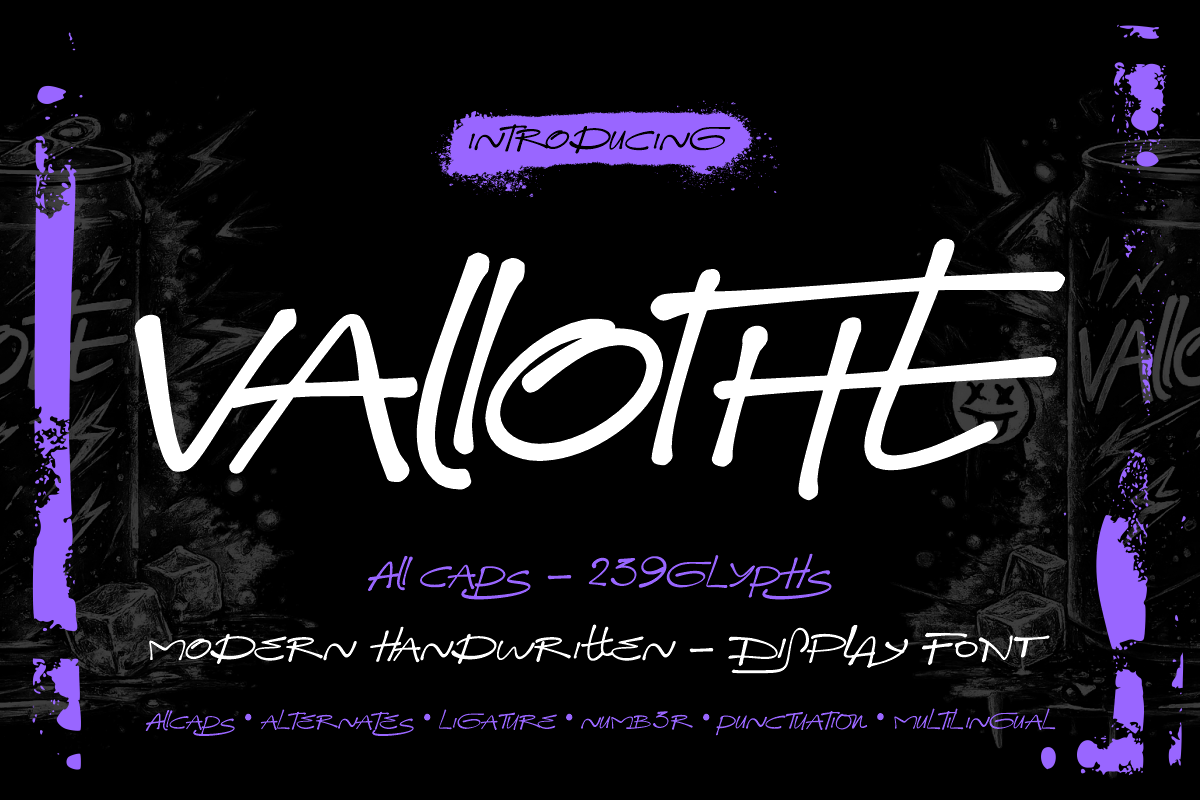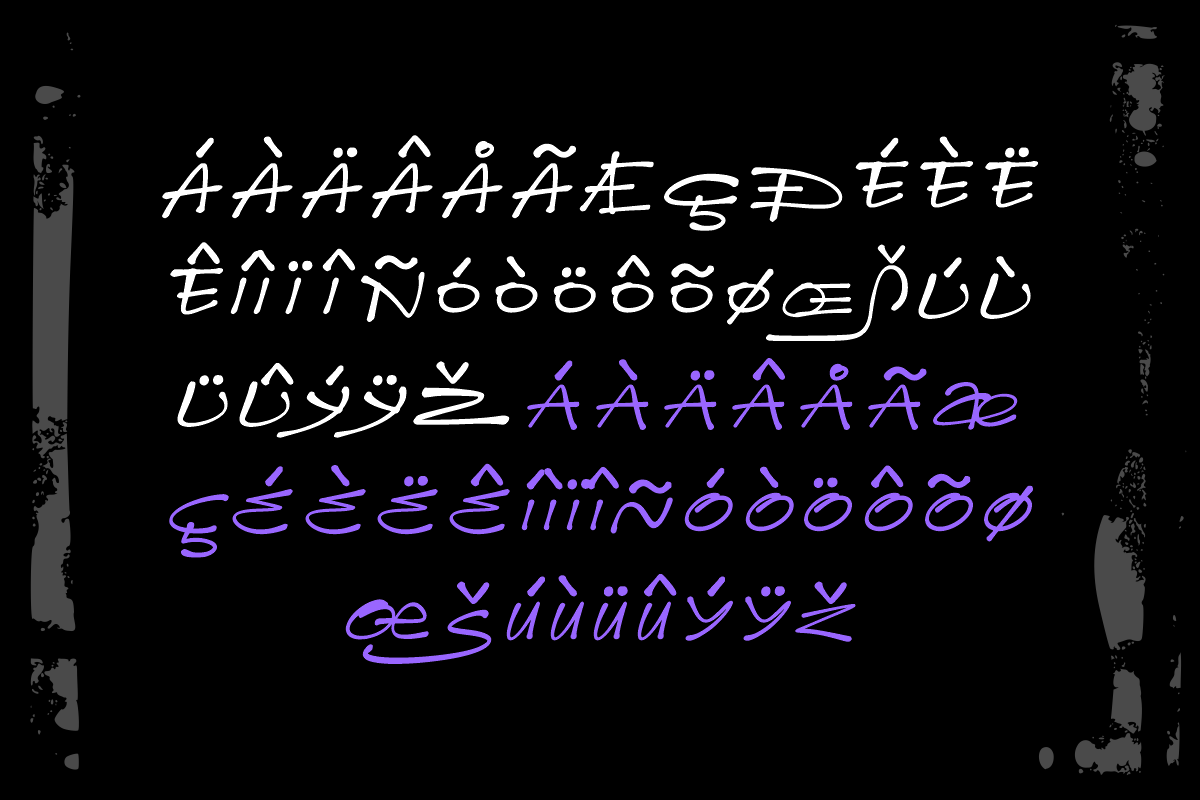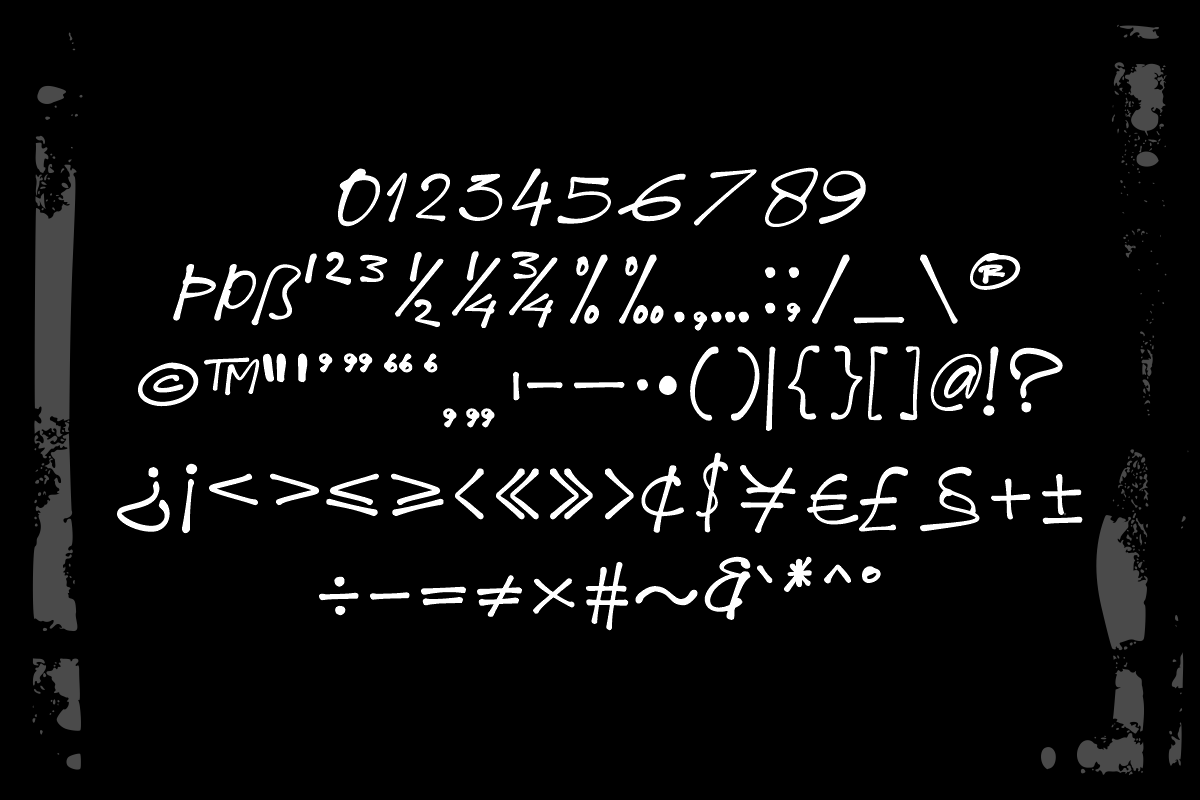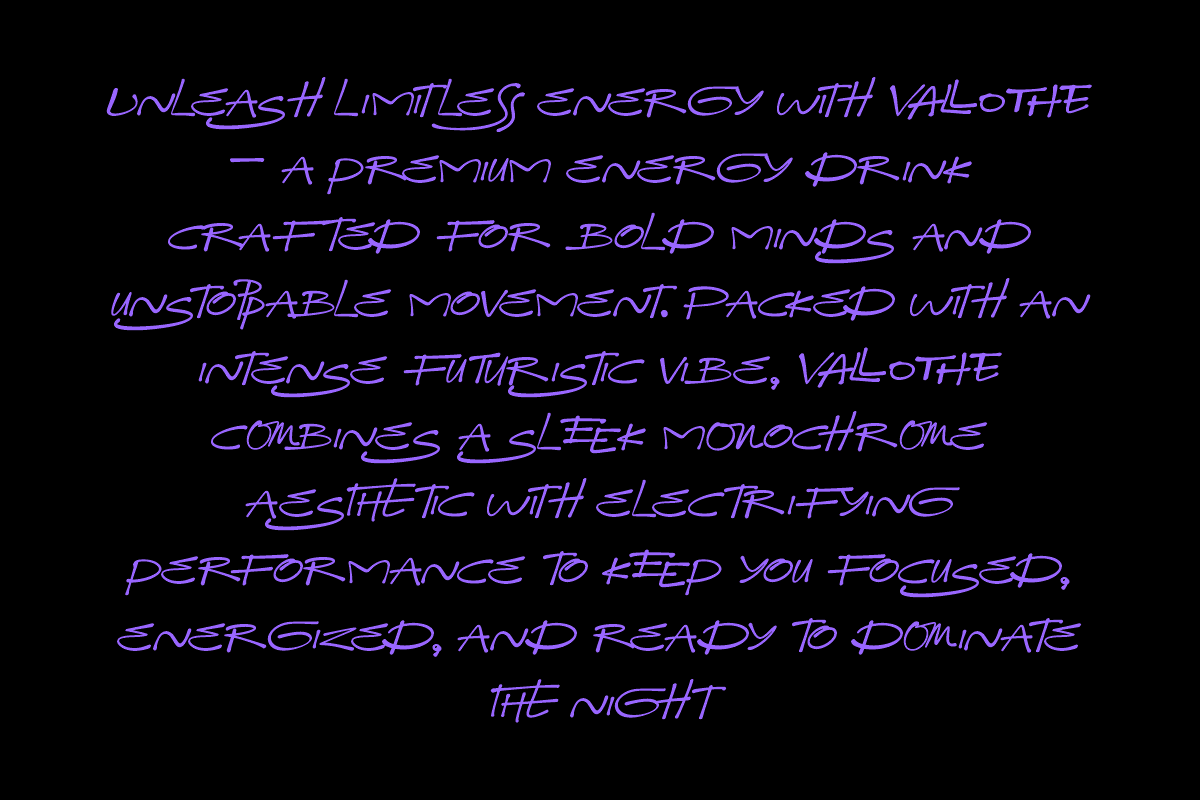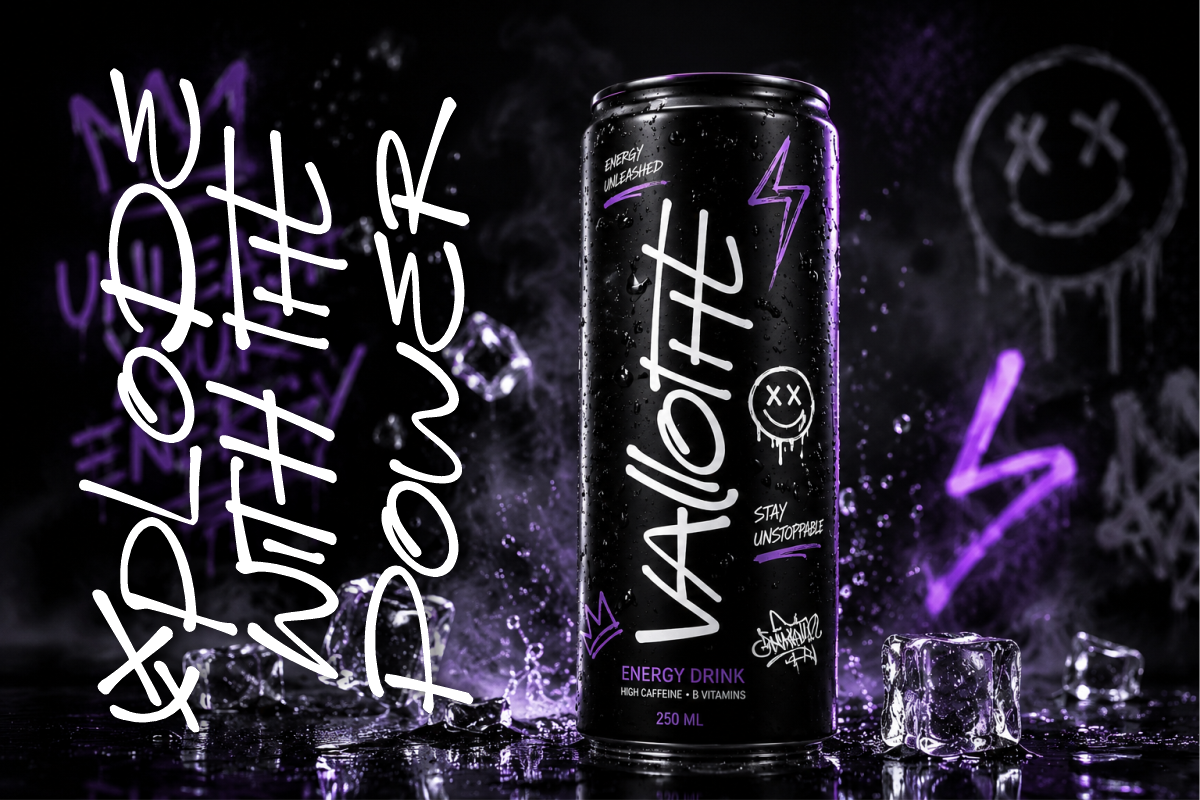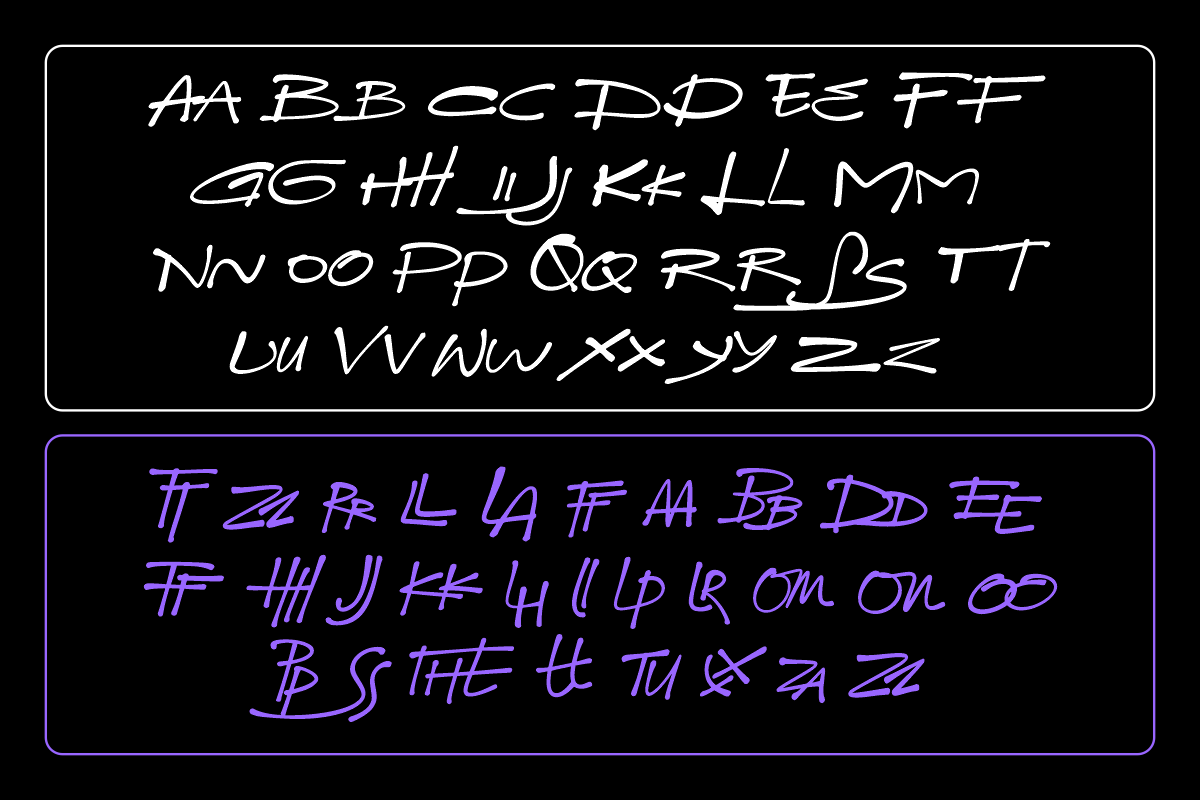
Vallothe - Handwritten Display Font
Vallothe is a modern handwritten display font that combines bold brush-inspired strokes with a clean, contemporary style. Designed in all caps, it features expressive alternates and ligatures that create a natural handwritten look while maintaining excellent readability. Whether you're designing logos, posters, apparel, social media graphics, or branding projects, Vallothe delivers a confident, energetic, and stylish presence that instantly captures attention.
With its handcrafted character and modern aesthetic, Vallothe is the perfect choice for creatives who want typography that feels authentic, bold, and effortlessly cool.